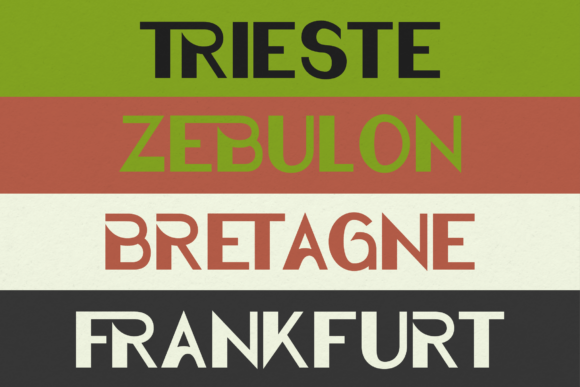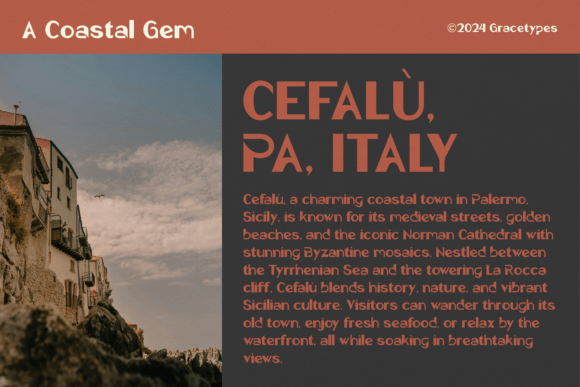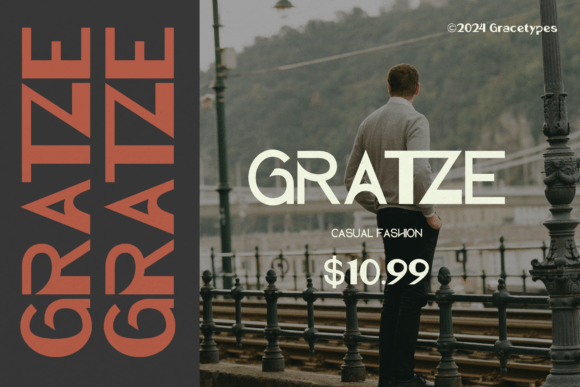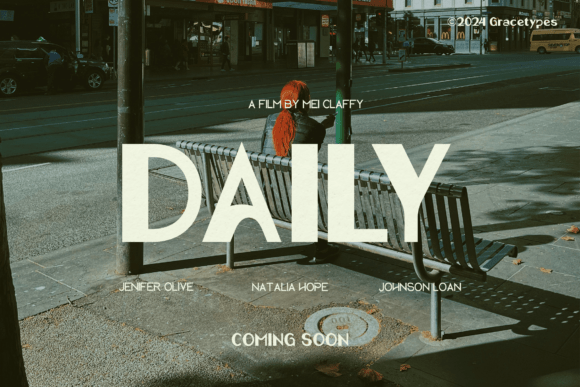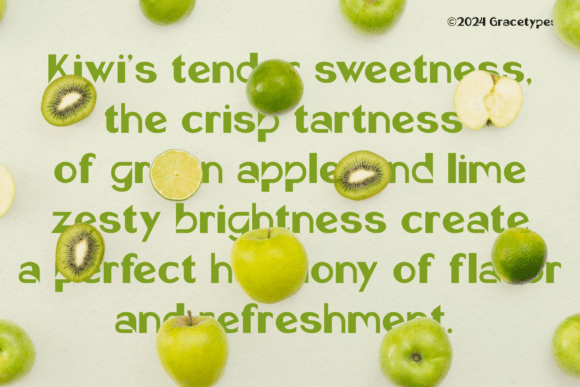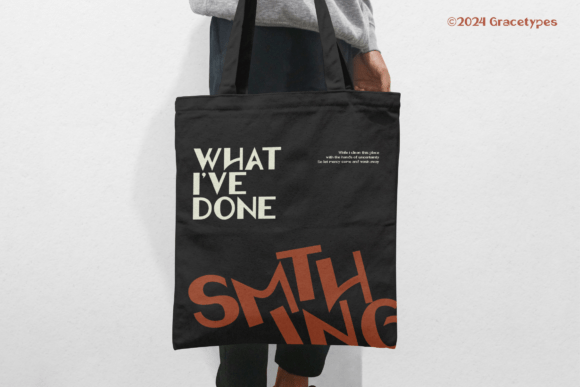
Introduction to Picky Fredy Font Font
Fonts play a crucial role in design, and the Picky Fredy Font font is a typeface that brings both character and versatility to any project. Whether you’re working on a branding project, a website, or a print design, the Picky Fredy Font font offers a unique style that can elevate your work.
Picky Fredy is an edgy and cool sans serif font, suitable for any projects such as: logos, branding projects, homeware designs, product packaging, mugs, quotes, posters, shopping bags, t-shirts, book covers, name card, invitation cards, greeting cards, label, photography, watermark, special events, and all your other lovely projects that need a Display Typeface taste.
Picky Fredy is an edgy and cool sans serif font, suitable for any projects such as: logos, branding projects, homeware designs, product packaging, mugs, quotes, posters, shopping bags, t-shirts, book
Key Features of Picky Fredy Font Font
Why Choose Picky Fredy Font Font?
The Picky Fredy Font font is more than just a typeface – it’s a design tool that helps you communicate your message with style and clarity. Its unique character set and versatile design make it suitable for a wide range of applications, from elegant invitations to bold headlines.
With its carefully crafted letterforms and balanced proportions, the Picky Fredy Font font ensures readability and visual appeal across all mediums.
What makes Picky Fredy Font font special?
The Picky Fredy Font font stands out with its unique design, exceptional readability, and versatility across various design applications.